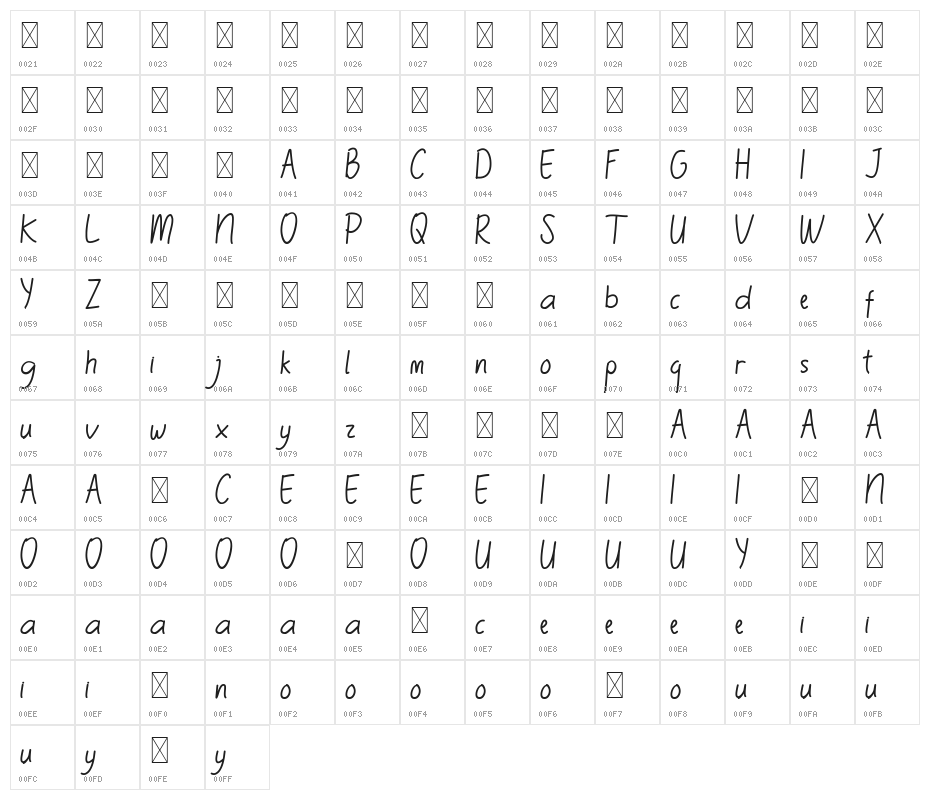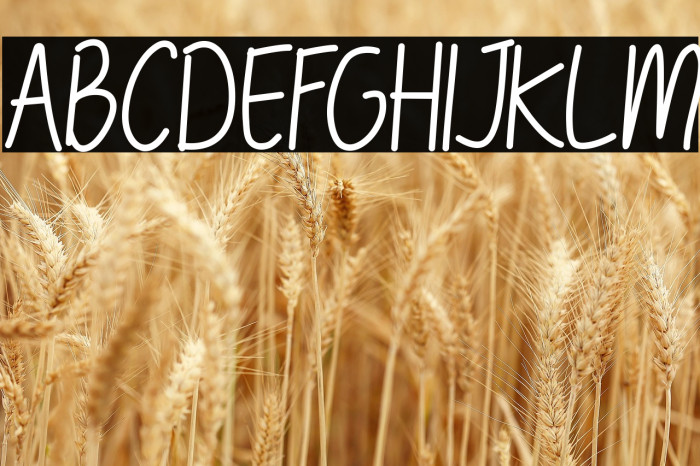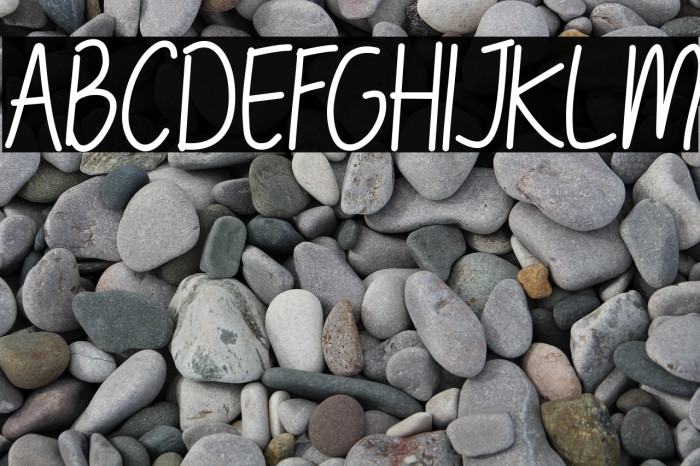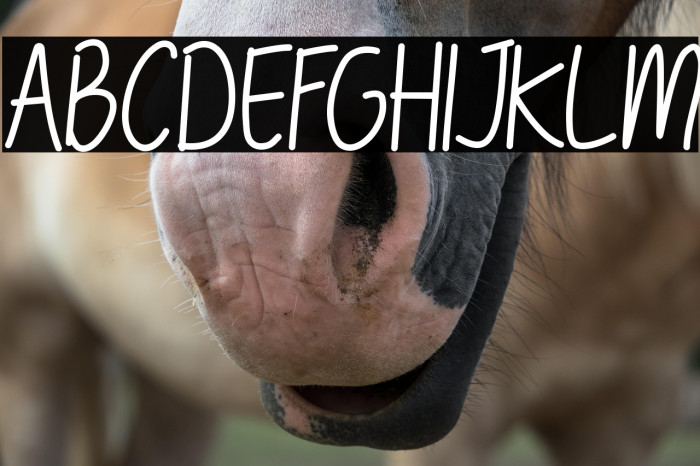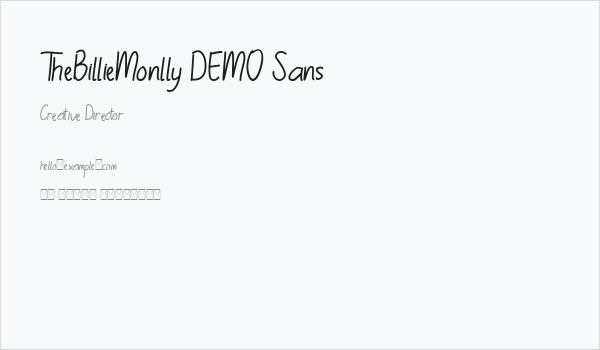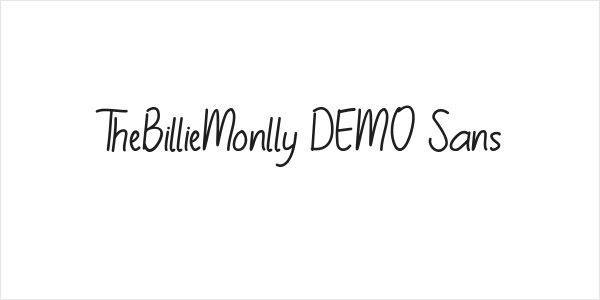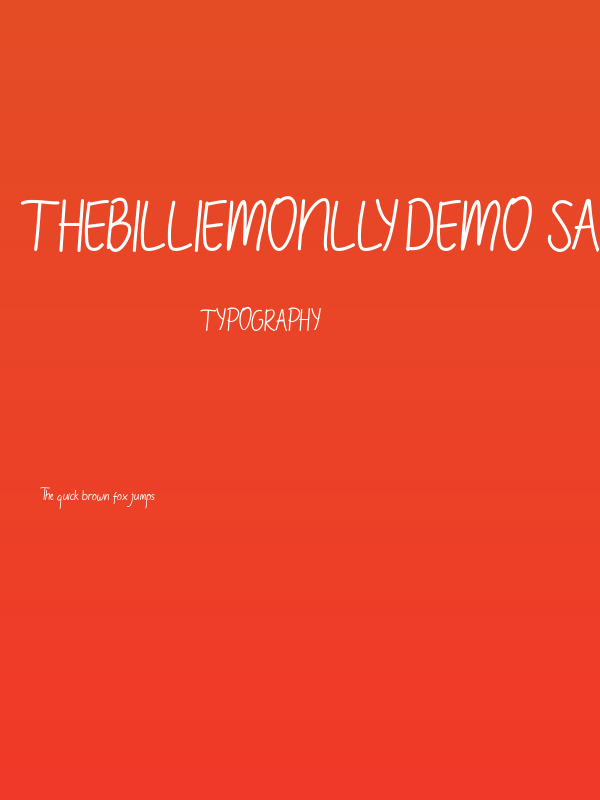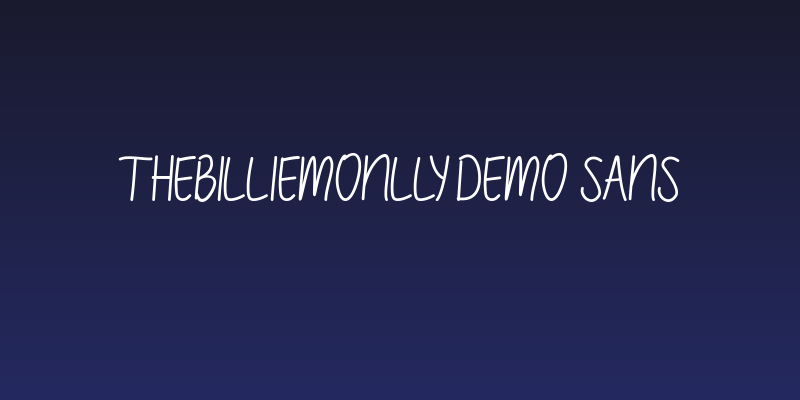
TheBillieMonlly DEMO Sans Font
TheBillieMonlly DEMO Sans Description
This font features a playful and handwritten style, characterized by its tall, narrow letters and slightly irregular strokes that give it a casual, friendly appearance. The uppercase letters are elongated with a slight slant, while the lowercase letters maintain a consistent height, contributing to its informal charm. The strokes are smooth and fluid, with a moderate contrast between thick and thin lines, enhancing readability while retaining a whimsical touch. This font is versatile, suitable for various creative projects where a personal and approachable feel is desired.